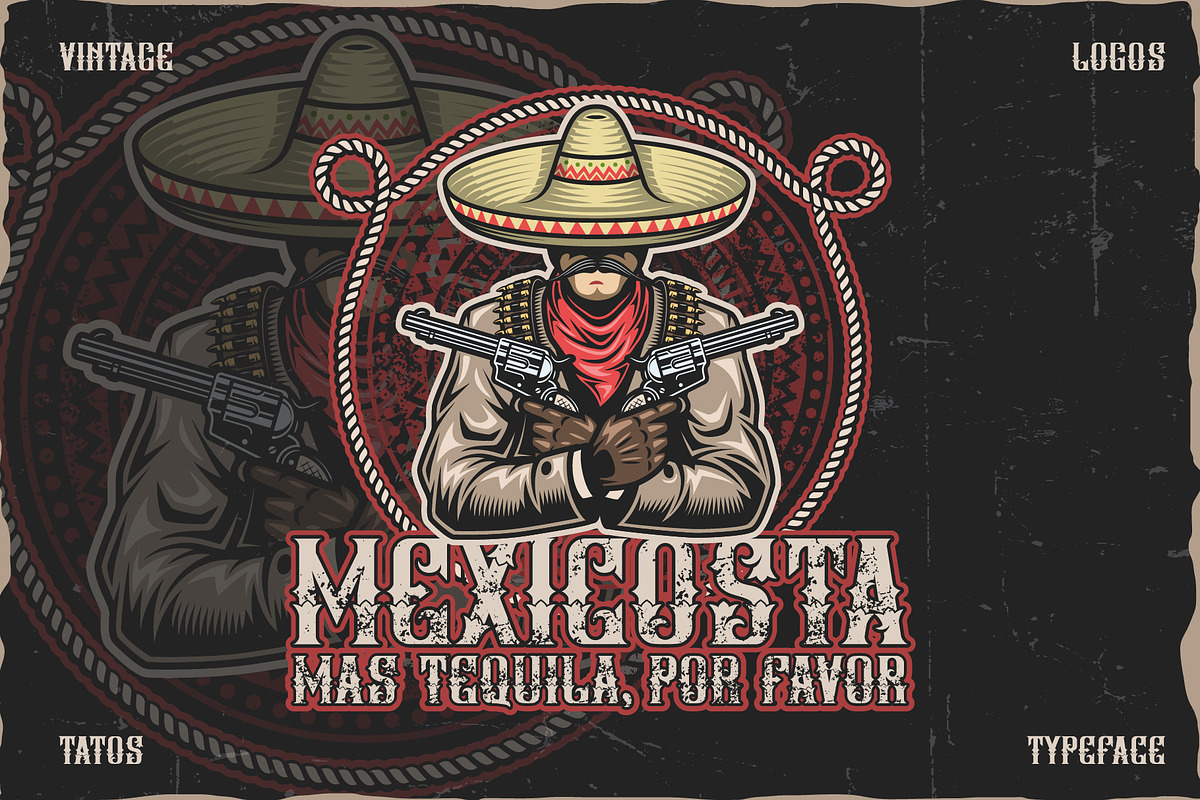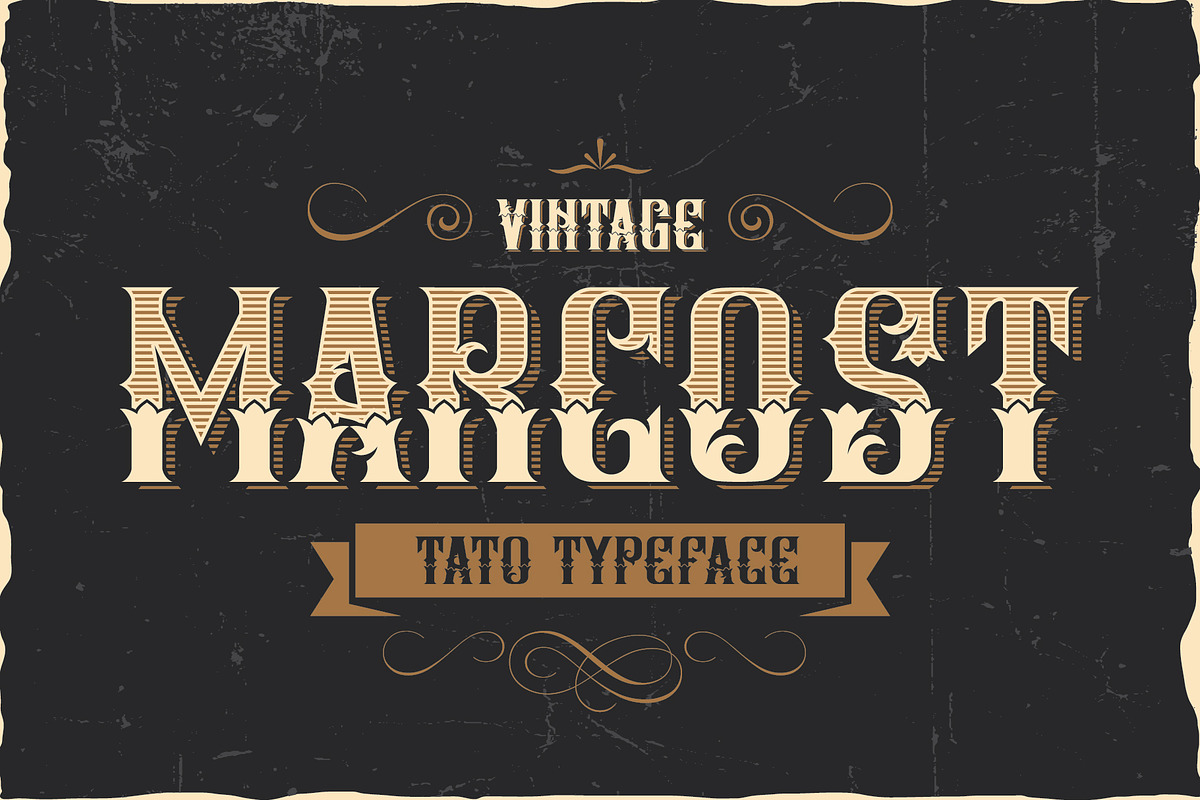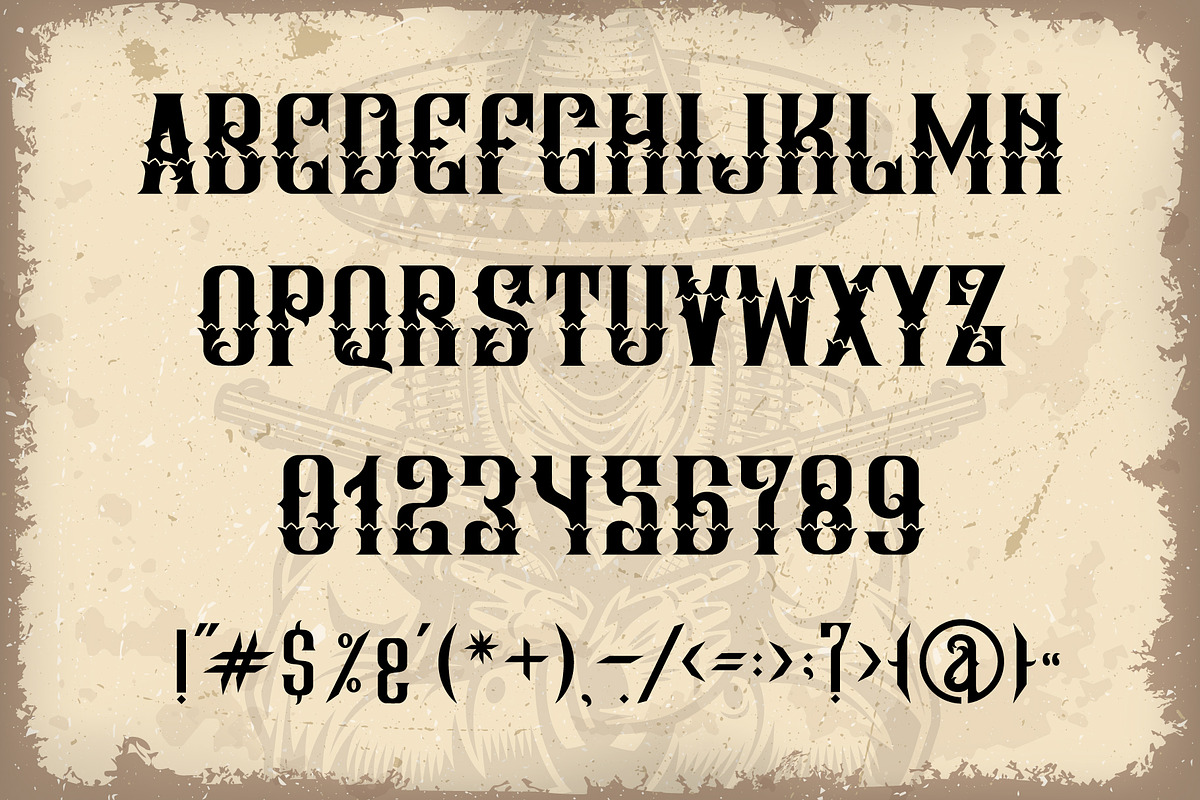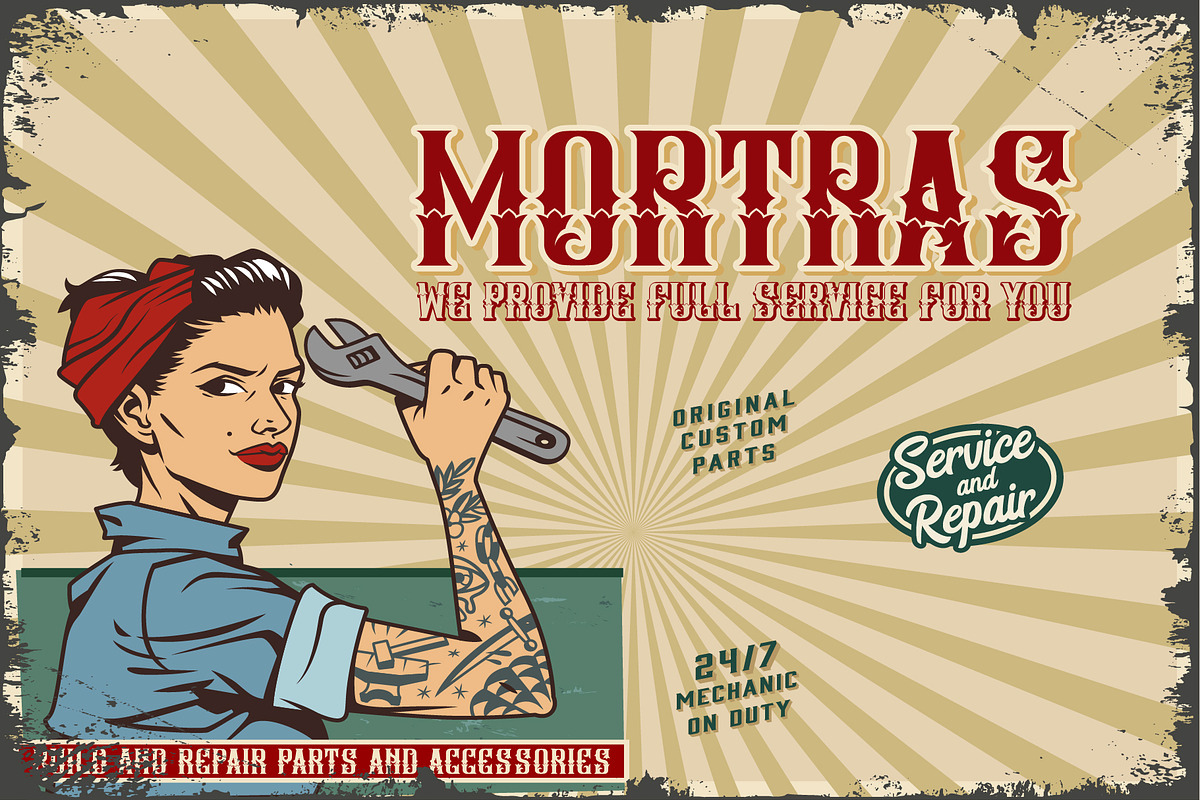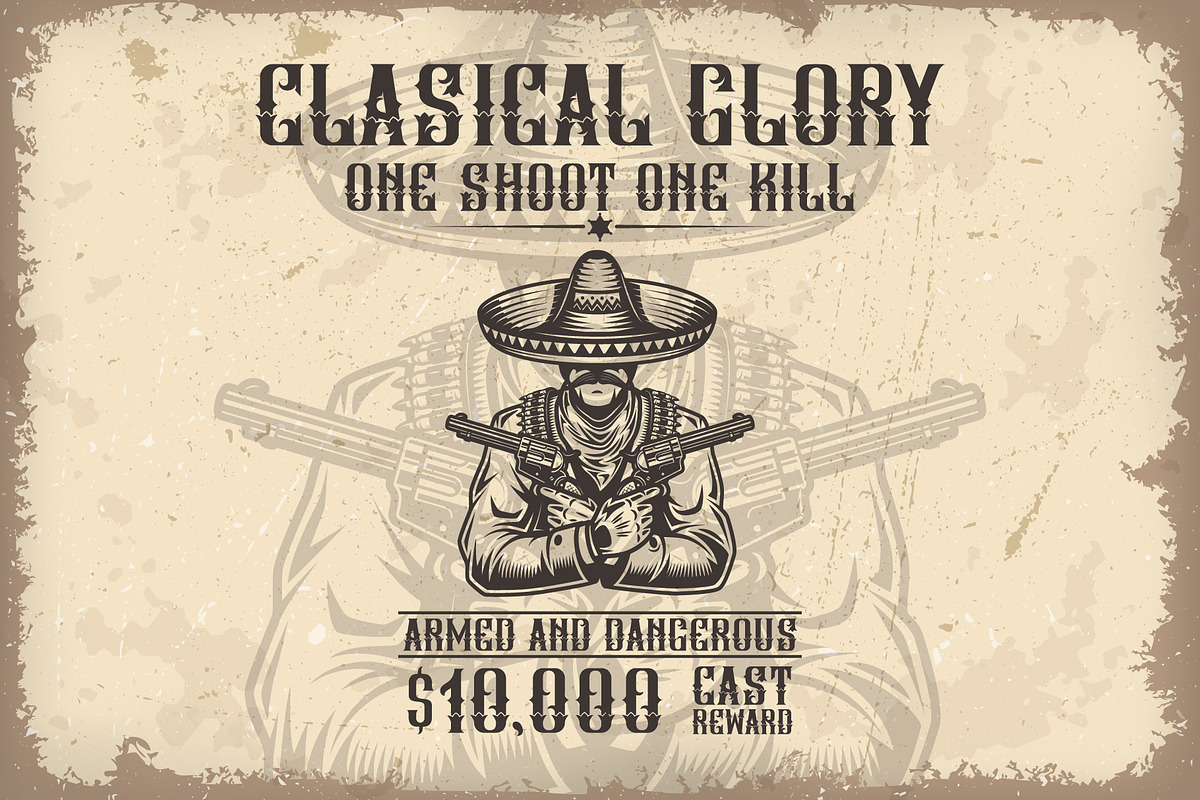
Marcost Tatto Typeface
Marcost Tato Typeface - inspired by famous tattoo logos perfect for designing templates, brochures, videos, ad branding, logos and more.